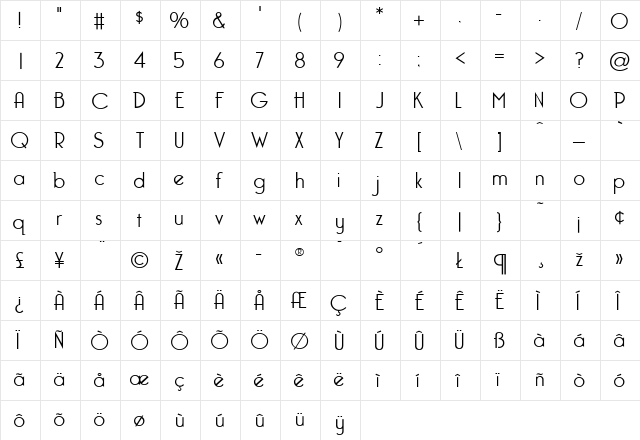
CaponeLight Regular
| Foundry | Digitized by Dan X. Solo. Software \ by Dover Publications, Inc |
Design Context for CaponeLight Typeface
CaponeLight is a composed and adaptable typeface that performs quietly and consistently across a wide range of design contexts. The delicate stroke weight brings airiness and refinement to layouts.